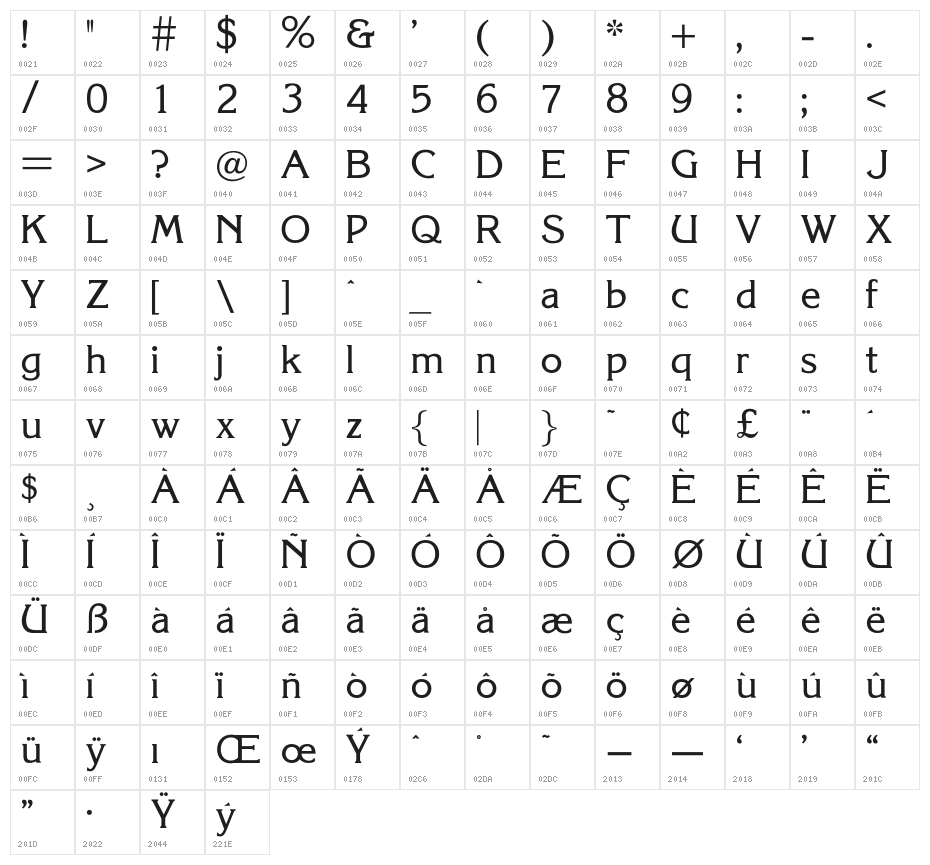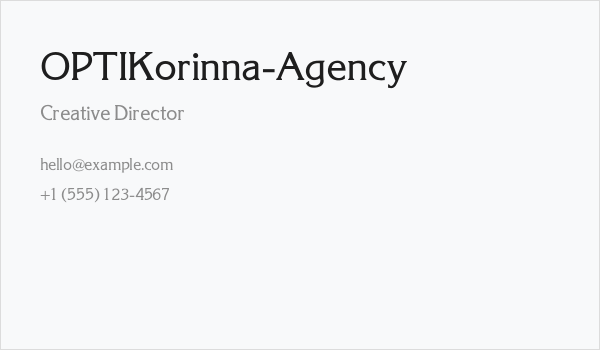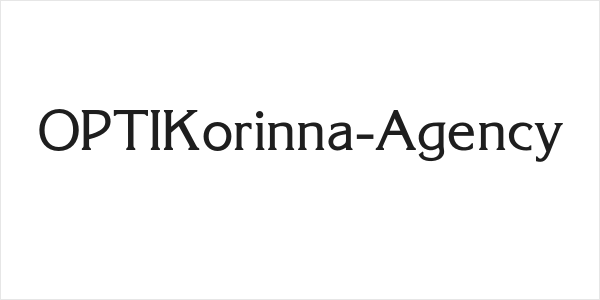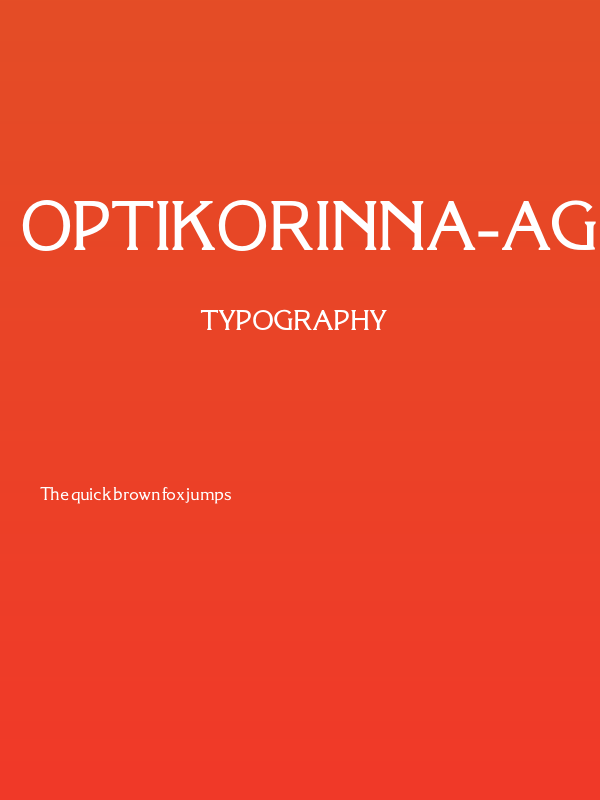
OPTIKorinna-Agency Font
OPTIKorinna-Agency Description
This font exhibits a classic serif style with a modern twist, characterized by its clean and elegant lines. The uppercase letters are bold and commanding, while the lowercase letters maintain a balanced and readable form. The numerals are distinct and well-proportioned, ensuring clarity in numerical data. Special characters are crafted with precision, adding a touch of sophistication. The overall design is versatile, suitable for both formal and contemporary applications, making it an excellent choice for a wide range of design projects.
| Proposed Projects | Ideal for editorial design, branding, book covers, and formal invitations. |